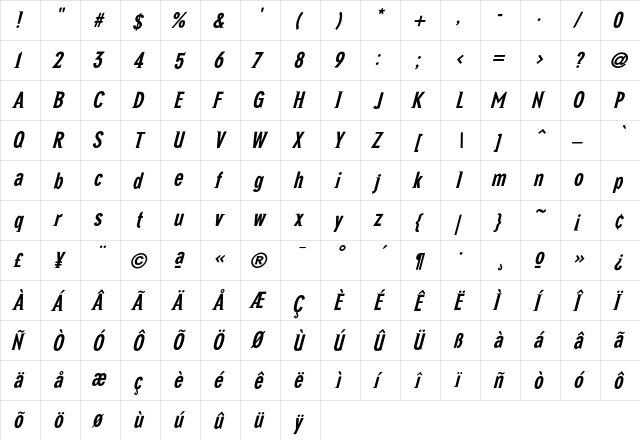
NewGlobal BoldItalic
Design Context for NewGlobal Typeface
NewGlobal takes a measured approach to typography — its balanced proportions and neutral character make it a reliable workhorse for both digital and print work. The dynamic lean of this cut emphasises speed and emphasis in any layout. Its bold stroke weight gives it real presence on the page.
Pro Tip: Use NewGlobal for emphasis, pull quotes, and subheadings where its slanted energy can add rhythm to the layout.